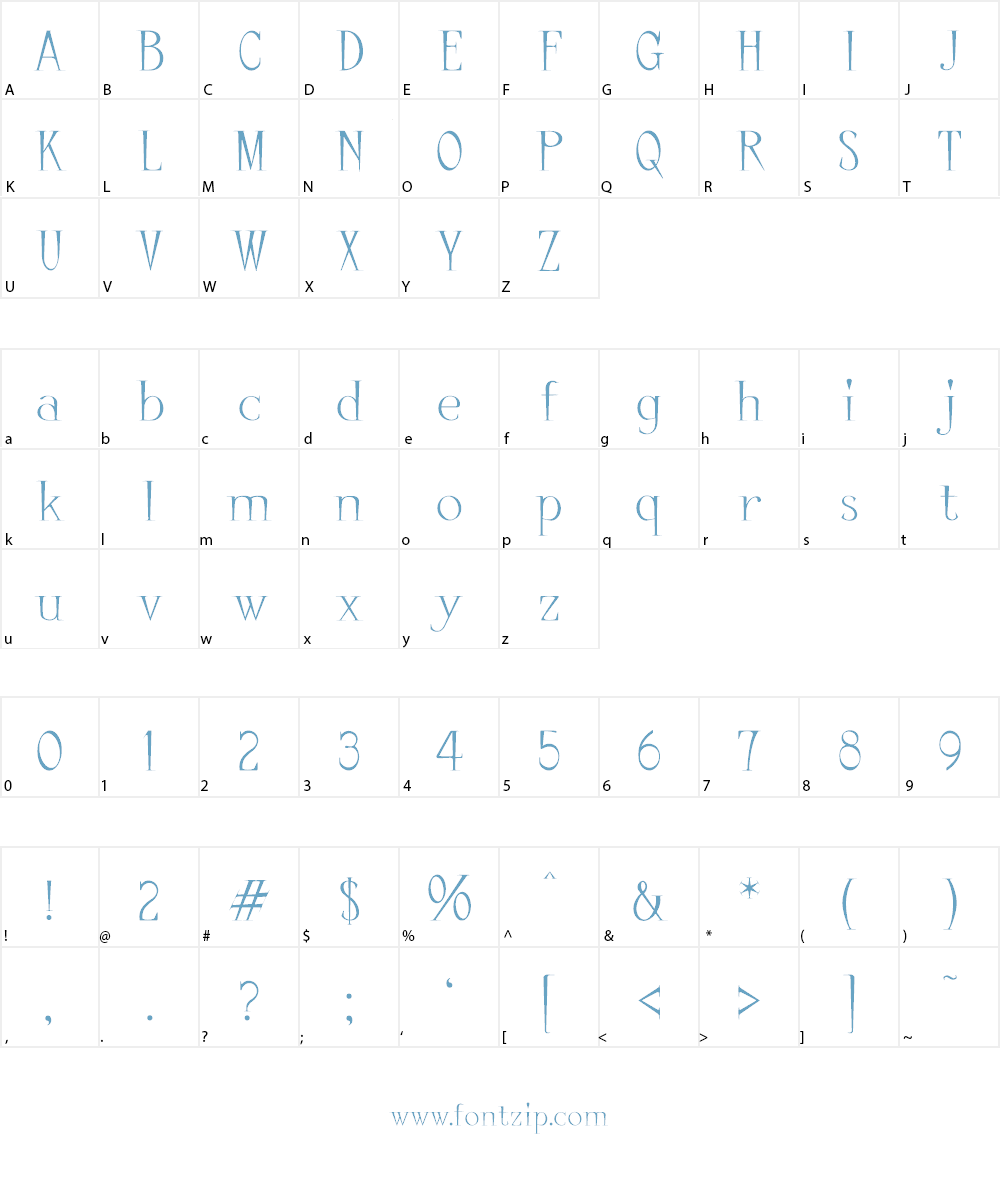
I originally call this font sand print in the older flickr page. now it's call Little Carpenter or Attakullakulla (Cherokee, Ata-gul' kalu; often called Little Carpenter by the English) (circa 1708–1778) was an influential Cherokee leader and the tribe's First Beloved Man, serving from 1761 to around 1775. His son was Dragging Canoe, a leader of the Chickamauga Cherokee.
this font is condense and has some peculiar attributes, noting that the vertical stroke is tapered down to a slime line. again it's a experiment. i try to design as close to the original syllabary character like hi, ya, and le but syllabary character dv may not be what you expect.